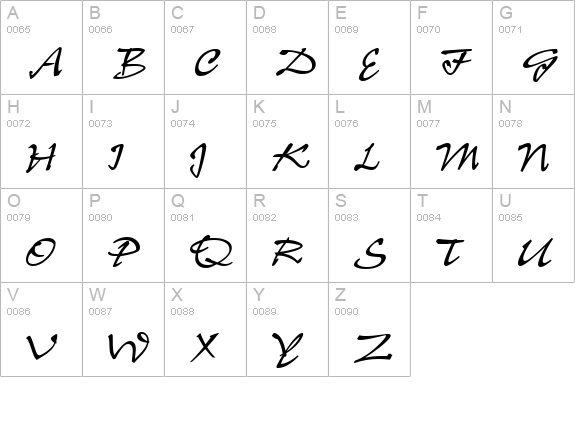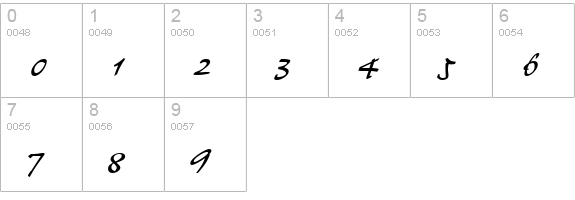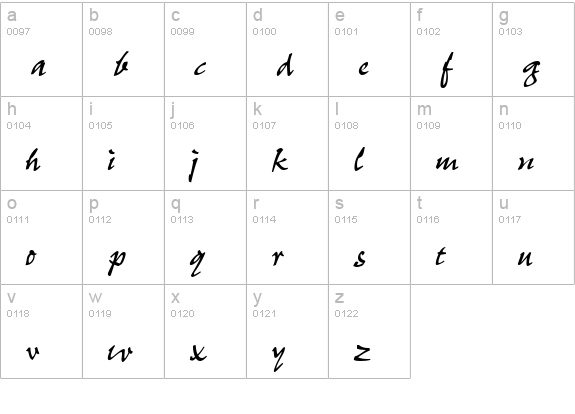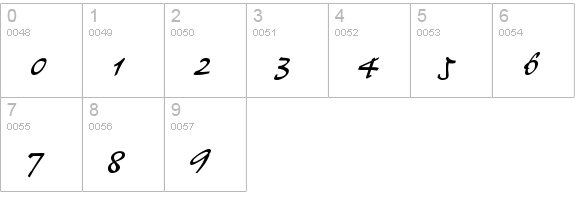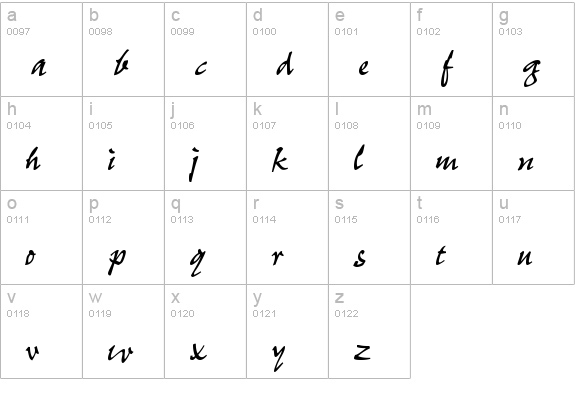
Pelota-Regular Font Details
Pelota-Regular is the standard, neutral variant in the Pelota typeface family \xE2\x80\x94 well suited to general body text, paragraphs, and standard typographic work.
Pelota-Regular is a versatile and elegant font that is perfect for a wide range of design projects. Its clean lines and modern aesthetic make it ideal for both digital and print applications. Whether you are designing a website, creating a logo, or working on a branding project, Pelota-Regular is sure to elevate your design with its timeless style. The best part is that Pelota-Regular is available for free download at FontsMarket.com. This means you can easily access this high-quality font without any cost, making it a valuable addition to your design toolkit. With Pelota-Regular, you can bring a touch of sophistication to your projects without breaking the bank. Download it today and see the difference it can make in your designs.